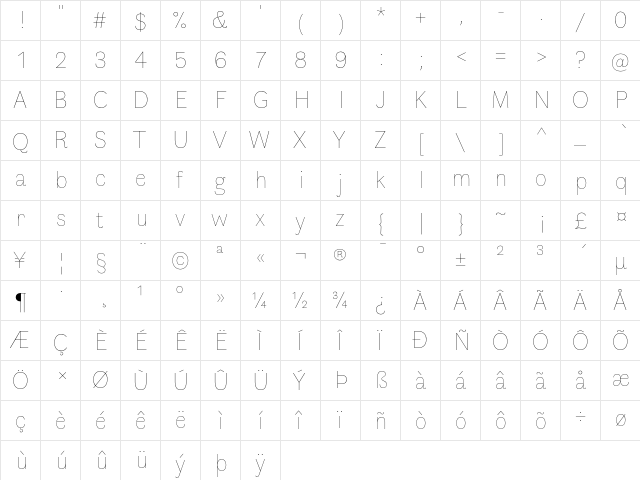
Faune Thin Regular
Design Context for Faune Thin Typeface
Faune Thin is a composed and adaptable typeface that performs quietly and consistently across a wide range of design contexts. Its slender proportions lend an understated elegance to any composition.